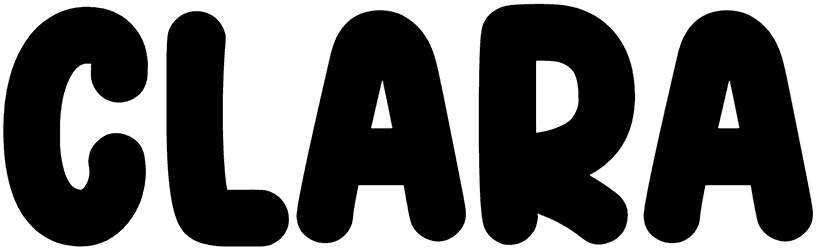
Clara Font
Your next playful design will be more impressive if you choose a sweet handwritten font such as this one. Clara font’s letters are bold and soft, and you have them in two different versions. Let’s set this caroon font on your kids’ book, birthday Instagram story, or the like and make them delightful.